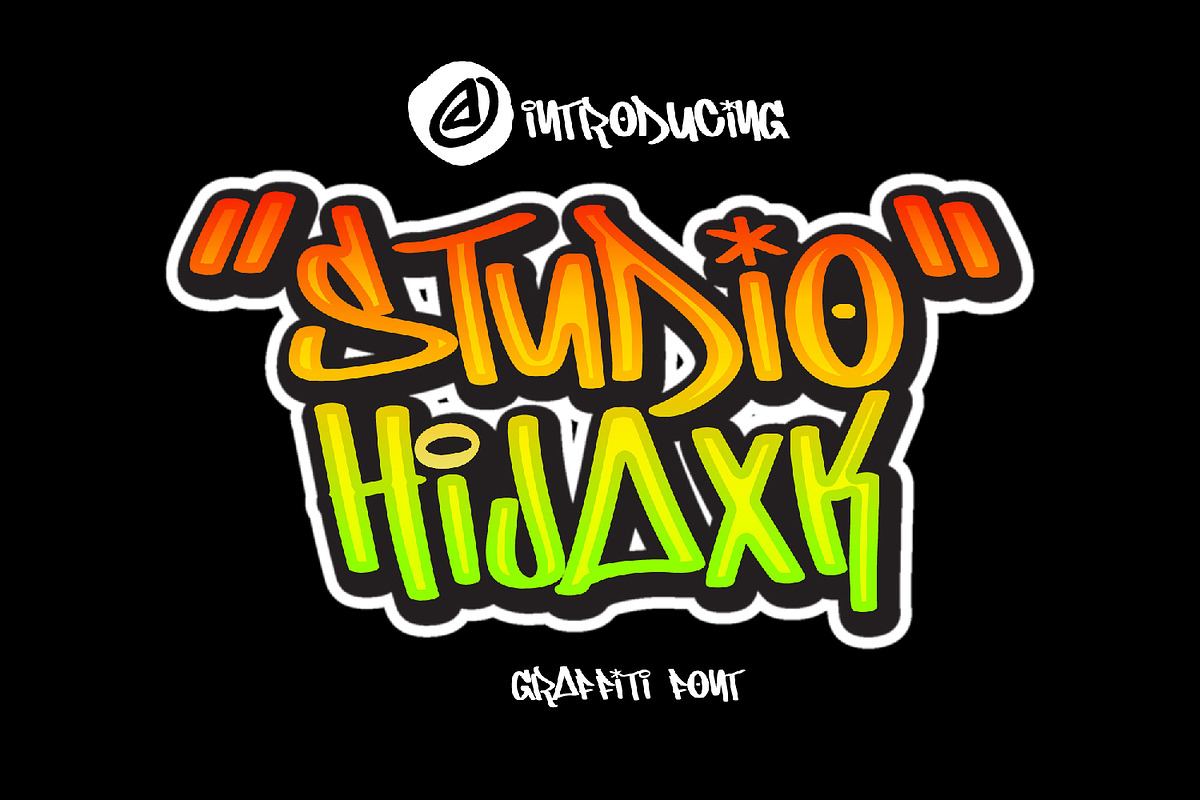
Studio Hijaxk Font Free Download is a bold, contemporary display typeface designed to make a statement. With its creative structure and unique flair, this font is ideal for design studios, branding projects, posters, album covers, fashion editorials, and trendy social media content that demands attention.
Blending artistic energy with modern versatility, Studio Hijaxk is perfect for designers who want to push boundaries and stand out. Its edgy letterforms bring a fresh, experimental vibe that’s perfect for creative professionals. Studio Hijaxk Font Free Download allows you to test its visual power in personal projects before purchasing a commercial license.
Make your mark with Studio Hijaxk — a design-forward font built for bold ideas and standout visuals.